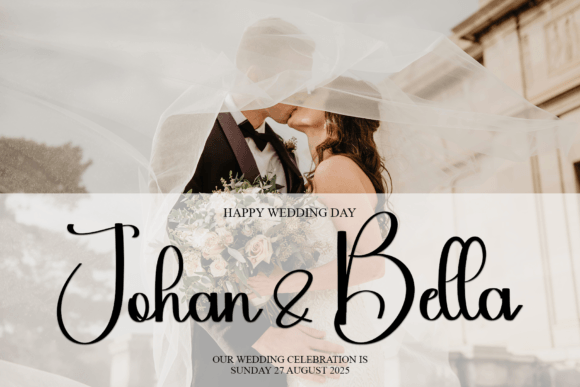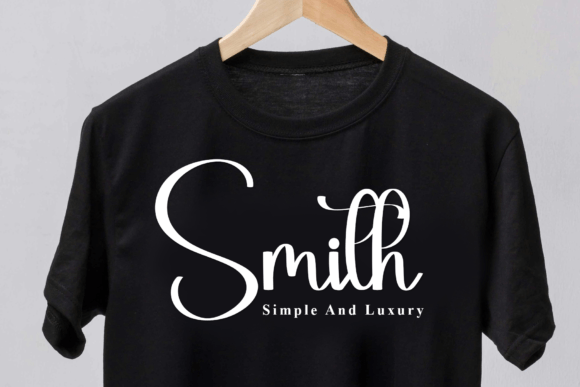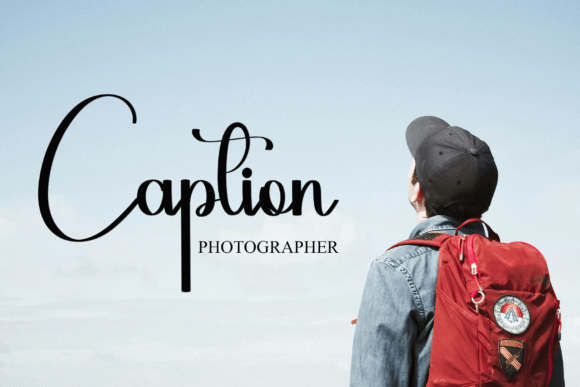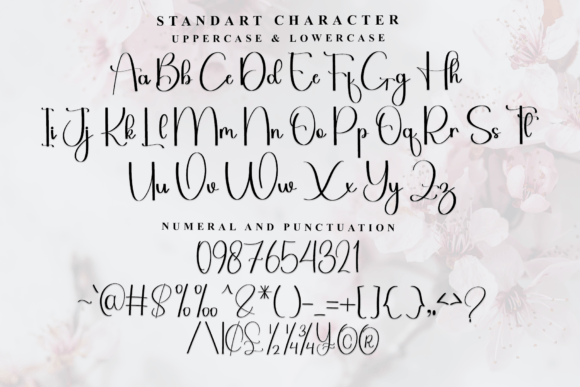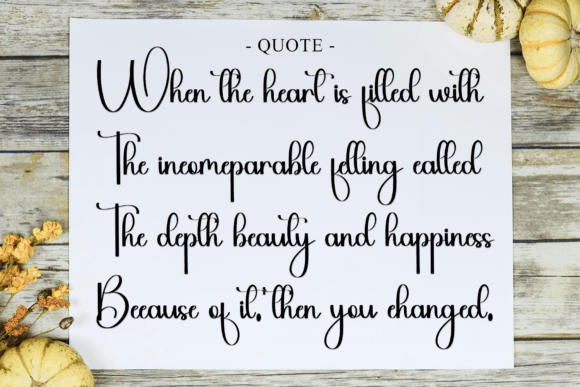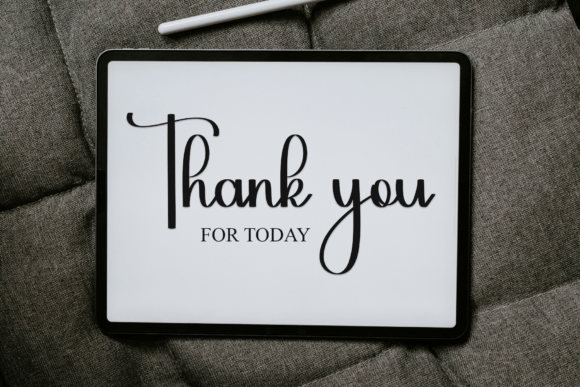
Introducing Antumn Font: A Timeless Handwritten Masterpiece
Are you a designer, crafty enthusiast, or simply someone who appreciates beautiful typography? Look no further than Antumn Font, a lovely and timeless handwritten font that’s perfect for creating eye-catching logos, branding, and quotes. With its unique and beautiful touch, Antumn Font is sure to make your design come alive!
The Characteristics of Antumn Font
So, what makes Antumn Font so special? For starters, it’s a handwritten font that’s been carefully crafted to exude a sense of elegance and sophistication. Every letter has a unique and beautiful touch, which sets it apart from more generic fonts. Whether you’re looking to create a logo, branding materials, or simply want to add some flair to your quotes, Antumn Font is the perfect choice.
One of the best things about Antumn Font is that it’s PUA (Private Use Area) coded. This means that you can easily access all the amazing glyphs and ligatures that make this font so special. With PUA coding, you can unlock a world of creative possibilities and take your designs to the next level. No more tedious searching for the perfect character or symbol – with Antumn Font, it’s all at your fingertips.
Antumn Font is a dream come true for designers and crafters alike. Whether you’re working on a logo, brochure, or social media graphics, this font is sure to impress. Its unique and beautiful touch adds a level of sophistication and elegance that’s hard to find with other fonts. Plus, with its PUA coding, you can easily access all the glyphs and ligatures you need to create stunning designs.
So, what can you create with Antumn Font? The possibilities are endless! Here are just a few ideas to get you started:
- Eye-catching logos that make your brand stand out
- Beautiful branding materials, such as business cards and brochures
- Stunning social media graphics that grab attention
- Unique and inspiring quotes that add a touch of elegance to your designs
- Handmade crafts, such as cards, scrapbook pages, and journal entries
Why Choose Antumn Font?
With so many fonts on the market, why choose Antumn Font? Here are just a few reasons why:
- Unique and beautiful touch that’s sure to make your designs stand out
- PUA coded for easy access to glyphs and ligatures
- Perfect for designers, crafters, and anyone who appreciates beautiful typography
- Endless creative possibilities, from logos and branding to quotes and handmade crafts
Get Creative with Antumn Font
In conclusion, Antumn Font is a truly special font that’s perfect for designers, crafters, and anyone who appreciates beautiful typography. With its unique and beautiful touch, PUA coding, and endless creative possibilities, Antumn Font is sure to take your designs to the next level. So why settle for a generic font when you can have a truly timeless and elegant one? Choose Antumn Font for your next design project and see the difference for yourself!